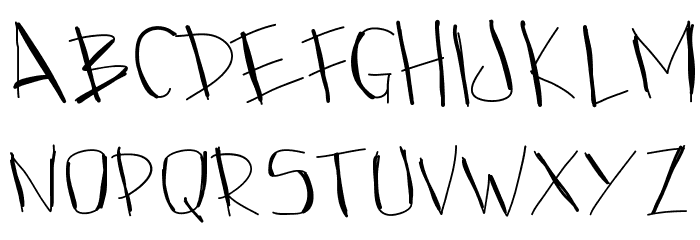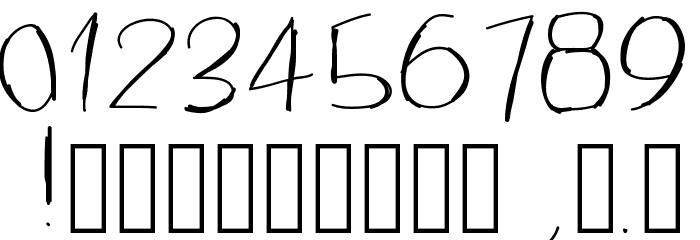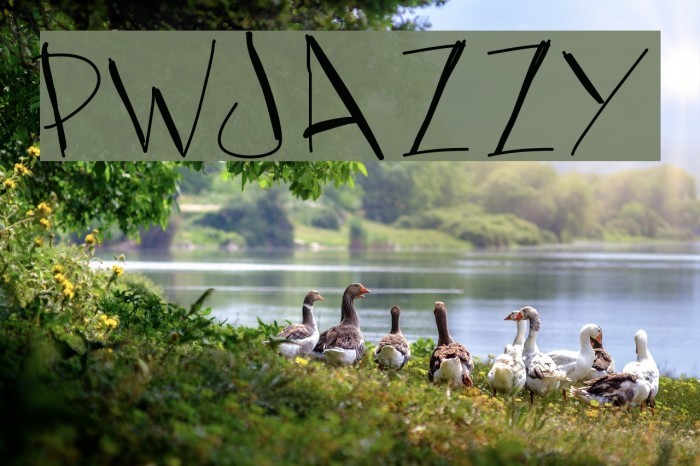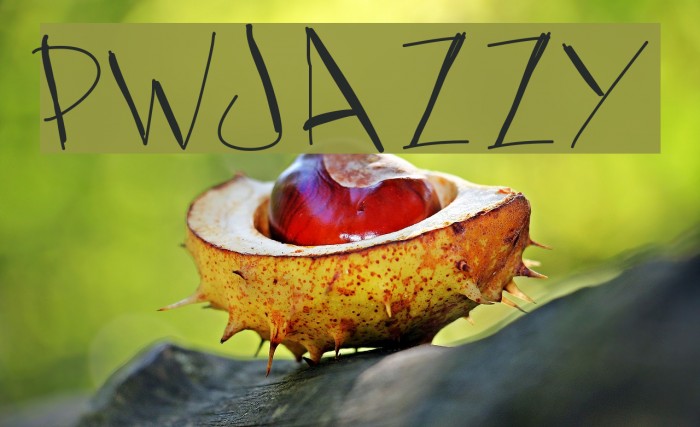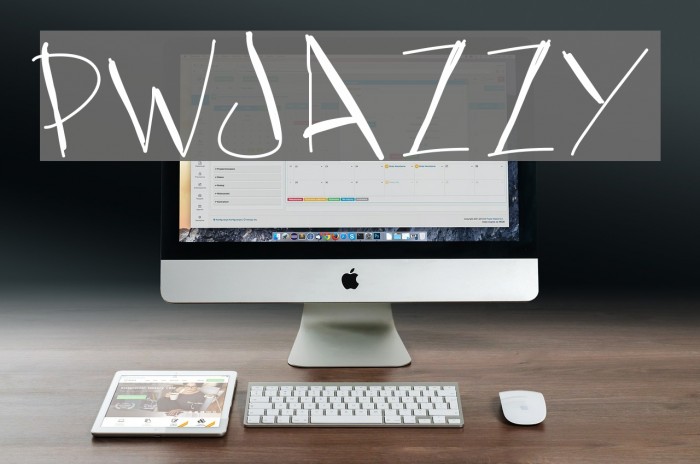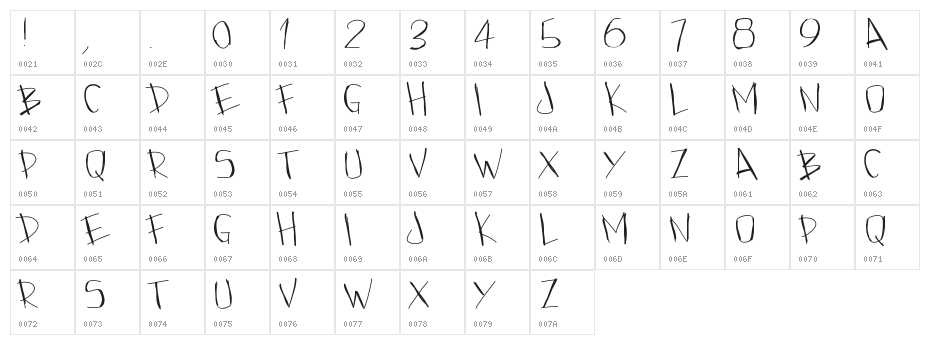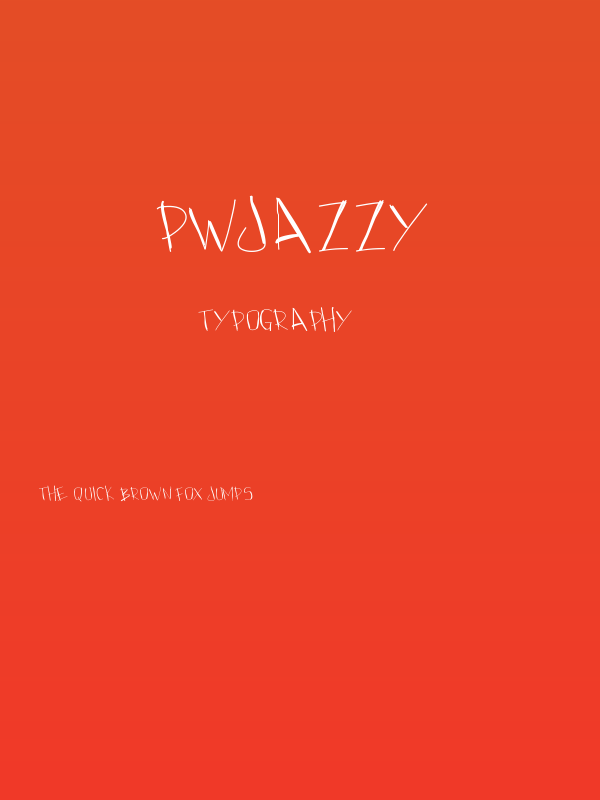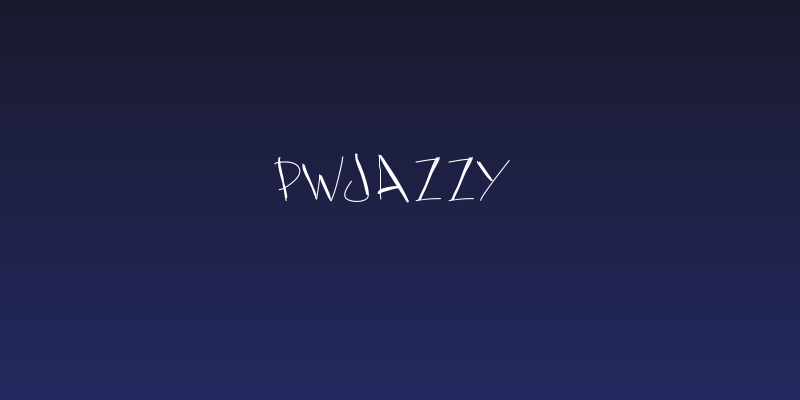
PWJazzy Font
This font features a playful and dynamic handwritten style, characterized by irregular strokes and a casual, informal appearance. The letters exhibit a sense of movement and spontaneity, with varying line thicknesses and slightly tilted angles, giving it a lively and energetic feel. The uppercase and lowercase letters maintain a consistent style, while the numbers and special characters complement the overall aesthetic. This font is ideal for projects that require a personal touch or a creative flair, such as invitations, posters, or artistic branding.
A playful, handwritten font with dynamic strokes and an informal style.
- Proposed Projects: Ideal for invitations, posters, artistic branding, and creative projects.
- Use Case: Headlines, Artistic branding, Creative projects